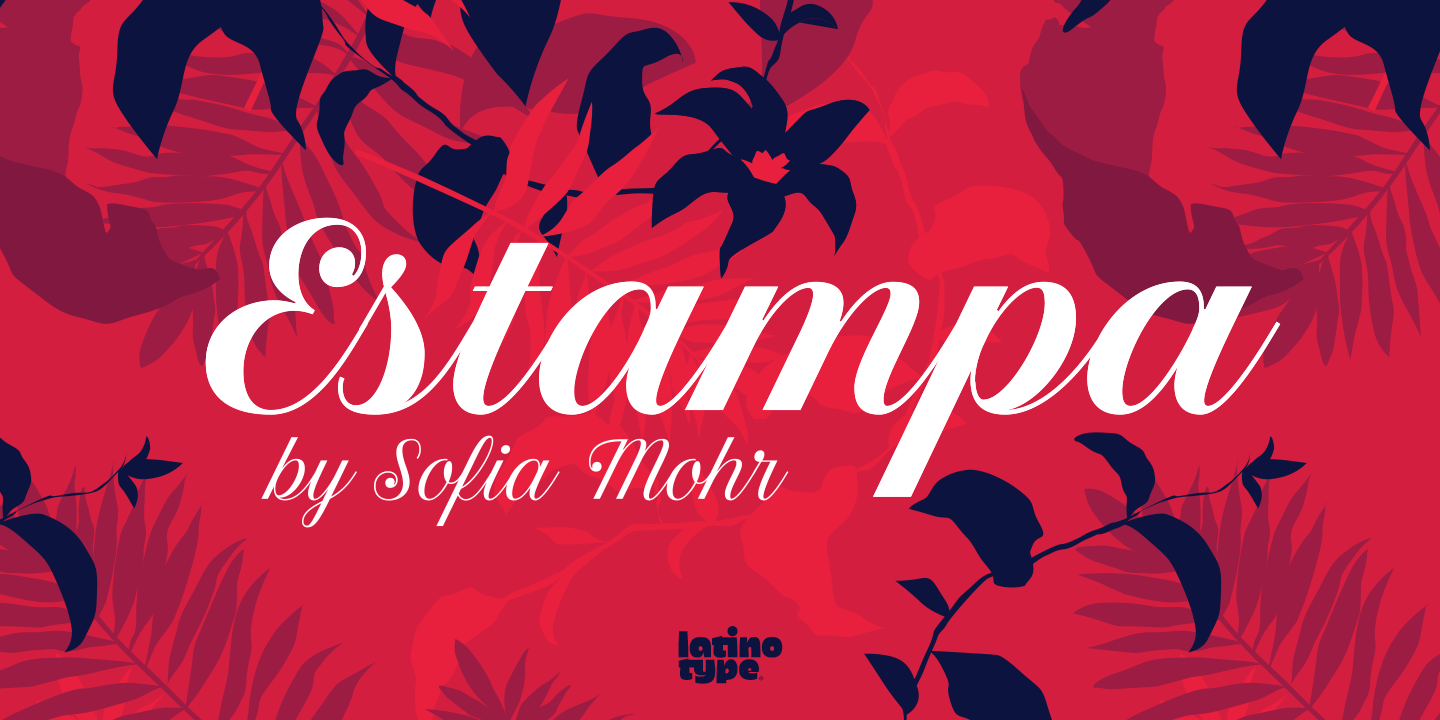
Add a touch of elegance and expressive flair to your designs with Estampa Script Font Free Download. This beautifully flowing script typeface features sweeping curves, graceful connections, and a calligraphic charm—perfect for wedding invitations, logos, greeting cards, fashion branding, and elegant packaging. Estampa Script Font Free Download brings sophistication and personality to any project needing a handwritten, luxurious feel.
The fluid strokes and natural rhythm of Estampa Script Font make it ideal for both romantic and upscale design themes. Whether you're working on boutique branding or personalized stationery, this font adds warmth and refinement with every letterform.